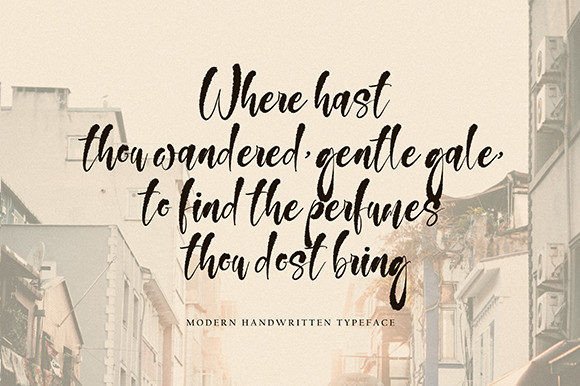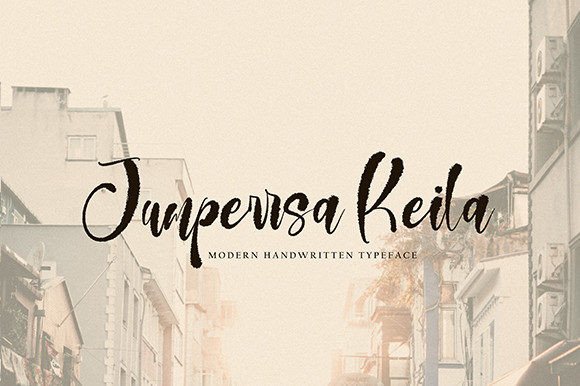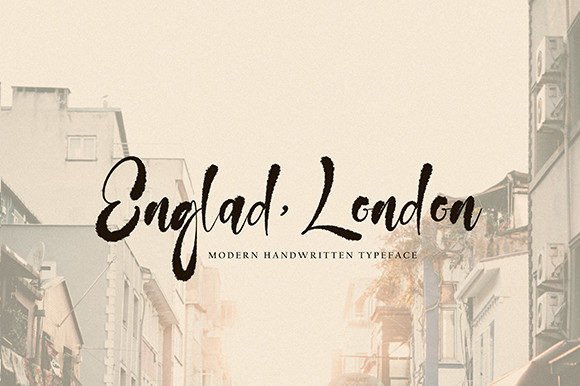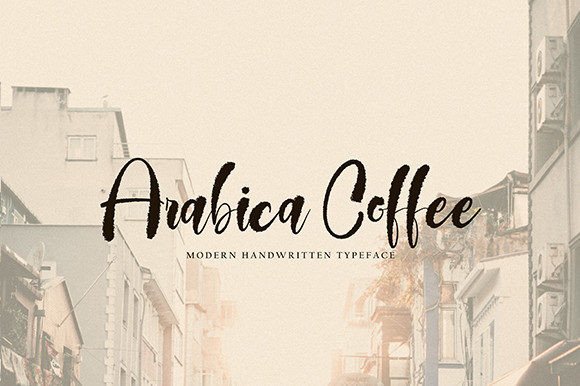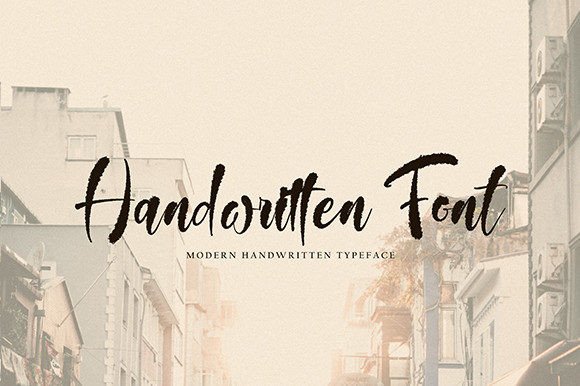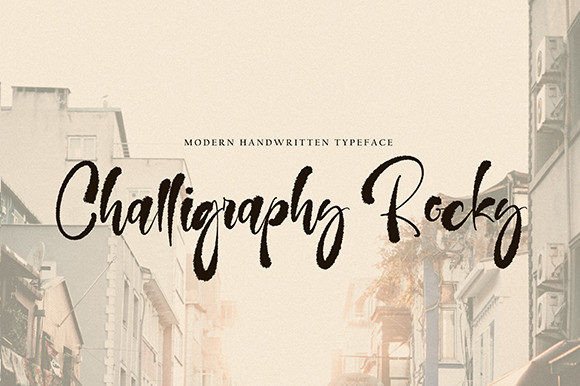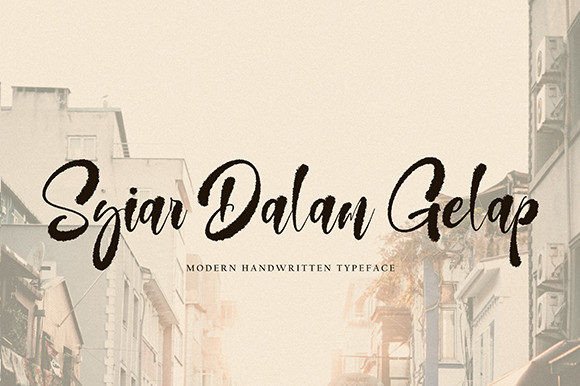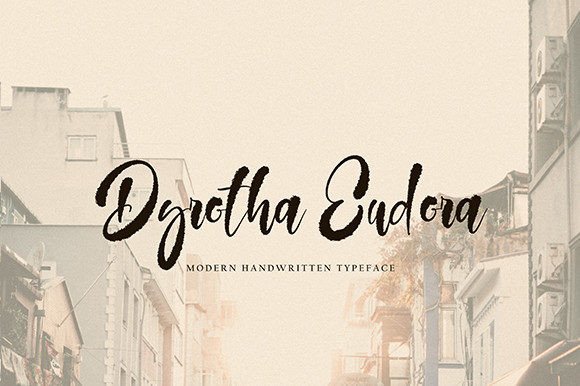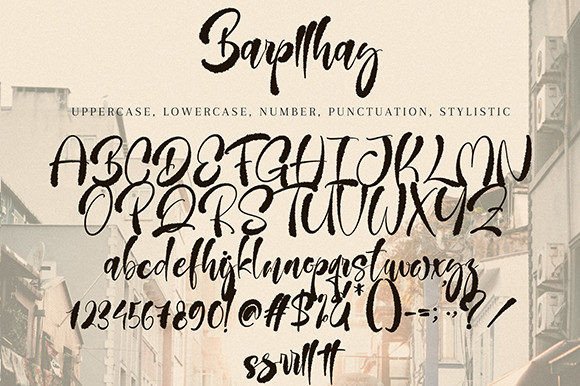
Barpllhay Font
Barpllhay Font Download – Modern Cool Handwritten Brush Script
The Barpllhay Font download is a modern handwritten brush typeface created to give your projects a bold and stylish edge. With its textured strokes and cool design, this font works beautifully in both casual and professional settings. Because it combines energy with elegance, it is perfect for posters, branding, social media, and more.
Modern Brush Style with Energy
Barpllhay features strong strokes and natural flow. As a result, it feels authentic and eye-catching while keeping your designs readable. In addition, its bold brush look makes it suitable for projects that need character.
Perfect for Posters and Event Designs
Event posters, flyers, and banners gain attention with this brush script. It creates a dramatic yet stylish tone, making it excellent for promotions and creative layouts. Therefore, it is an ideal choice for bold display projects.
Barpllhay Font Download for Logos and Branding
The Barpllhay Font download also works well for logos, labels, and packaging. Its brush texture gives brands a confident and creative look. Moreover, its versatility ensures that it adapts across both print and digital formats.
Versatile for Merchandise and Crafts
From t-shirts and mugs to decorative prints and homeware, this font adds personality to products. In addition, its handmade style makes every design feel unique.
Readability and Style Combined
While some brush fonts focus on looks alone, Barpllhay keeps a balance between clarity and design. As a result, it is effective for large titles as well as smaller creative details.
Why Choose This Handwritten Brush Script?
The BarpllhayFont download is bold, flexible, and simple to use. In other words, it fits many creative projects, from posters and invitations to branding. Finally, it is a modern brush font that adds style and confidence to every design.